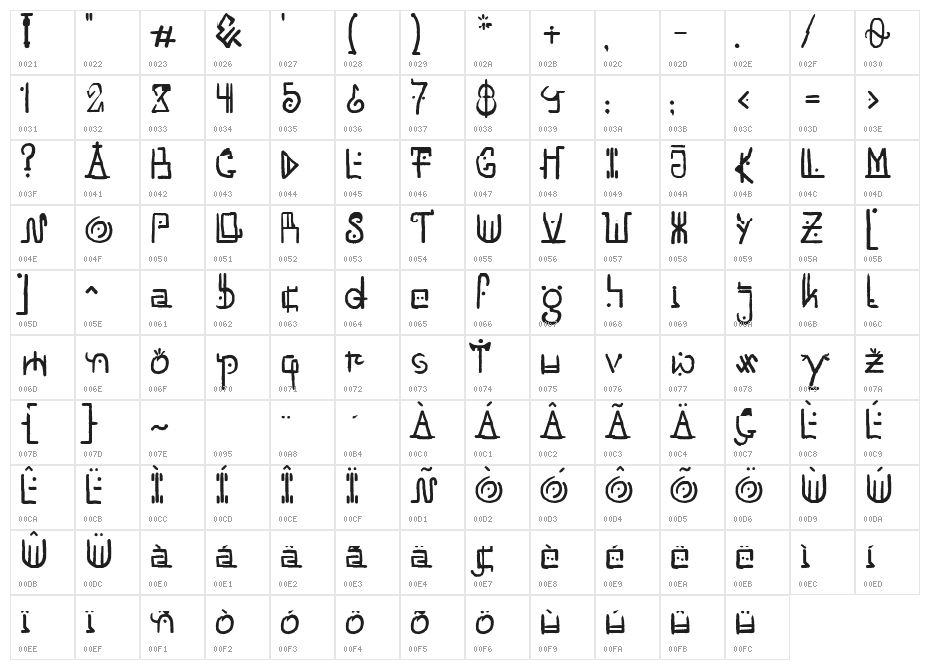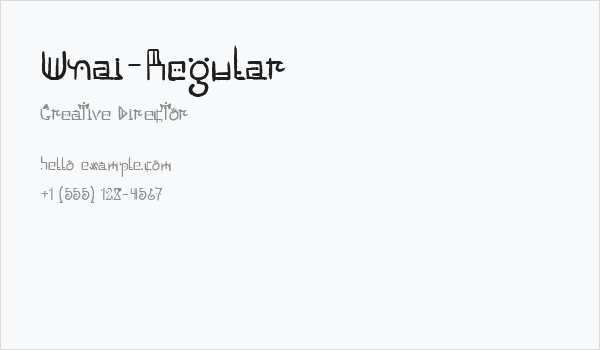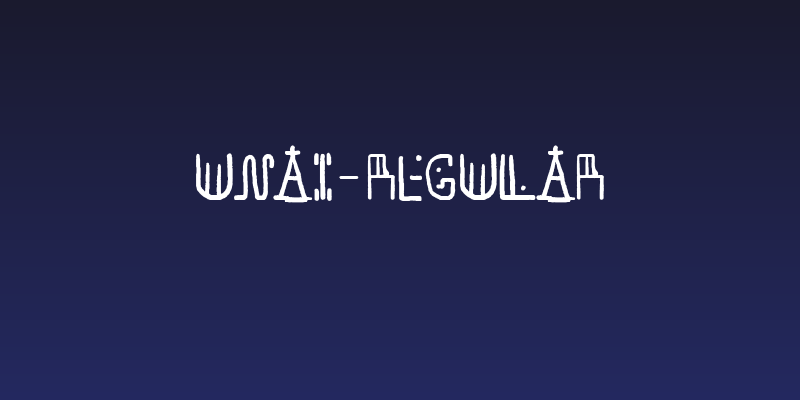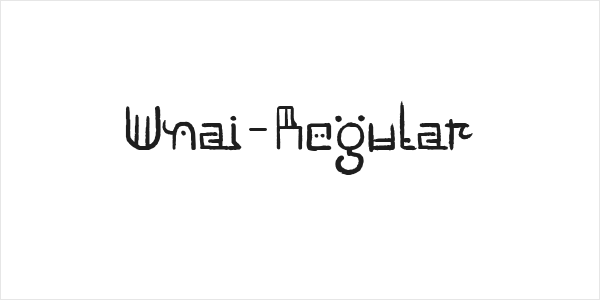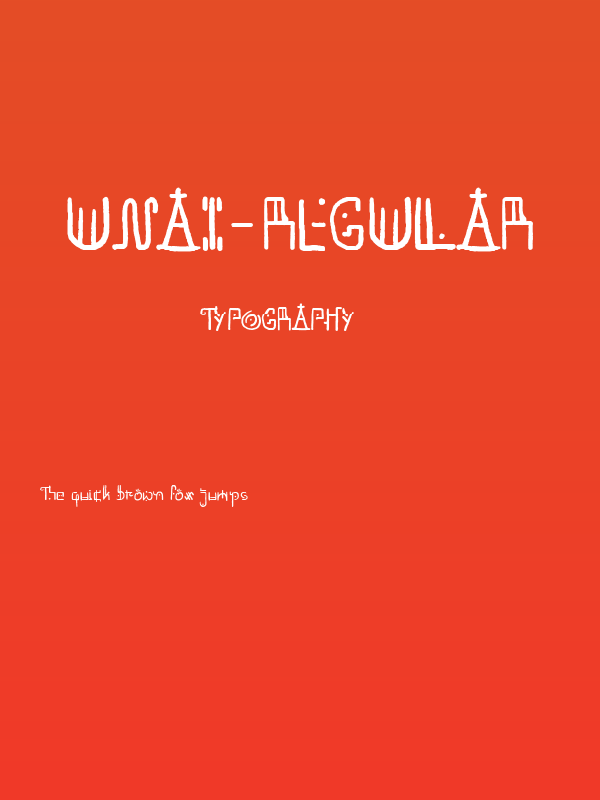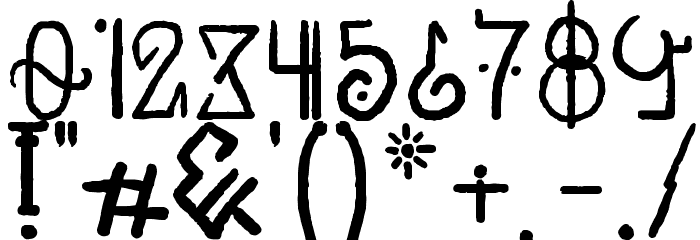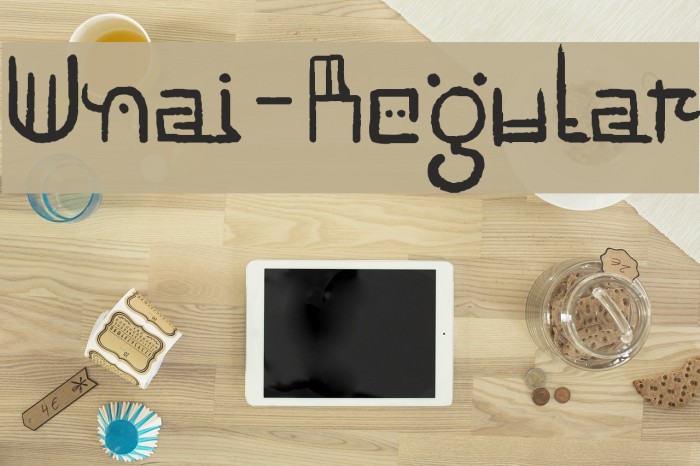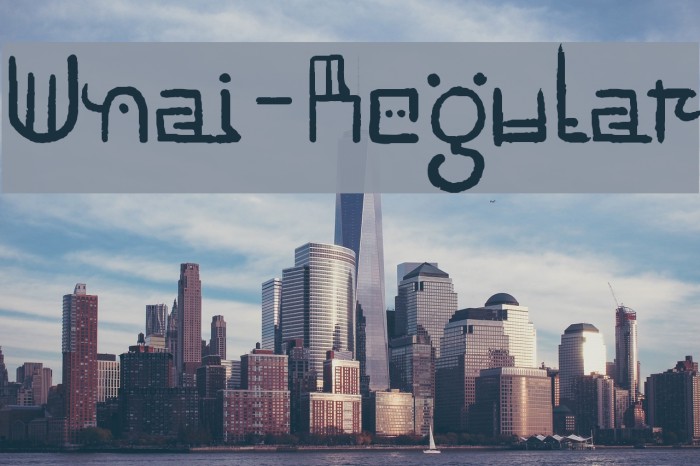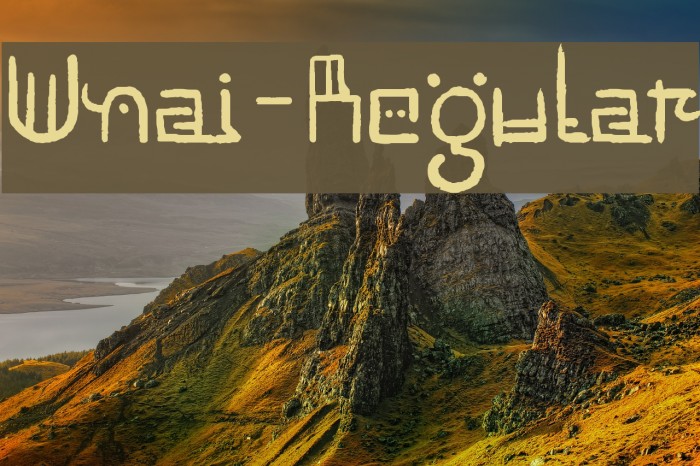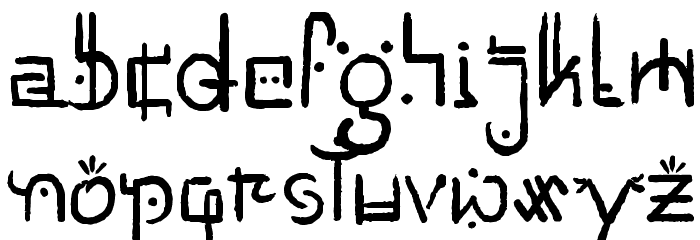
Unai-Regular Font
Unai-Regular Description
This font features a highly decorative and artistic style, characterized by its unique and playful forms. Each character is crafted with a combination of geometric shapes and organic curves, giving it a whimsical and almost tribal appearance. The uppercase letters are bold and striking, with intricate details that add to their visual interest. The lowercase letters maintain the same decorative flair, with some characters incorporating additional embellishments like dots and lines. Numbers and special characters follow the same design principles, ensuring a cohesive look across all elements. The overall effect is one of creativity and expressiveness, making it ideal for projects that require a standout and unconventional typeface.
| Use Case | Headlines, Logos, Artistic projects |
| Proposed Projects | Ideal for artistic posters, album covers, creative branding, and unique invitations. |